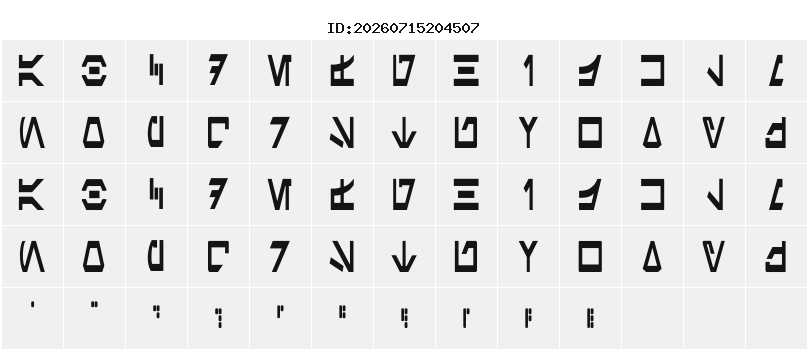
• Font Name: Aurek-Besh Narrow
• Full Font Name: Aurek-Besh Narrow
About Aurek-Besh Narrow.ttf
Aurek-Besh Narrow.ttf is a modern, elegant sans-serif font designed for ultimate readability and visual harmony. Perfect for branding, headlines, web design, and print materials.